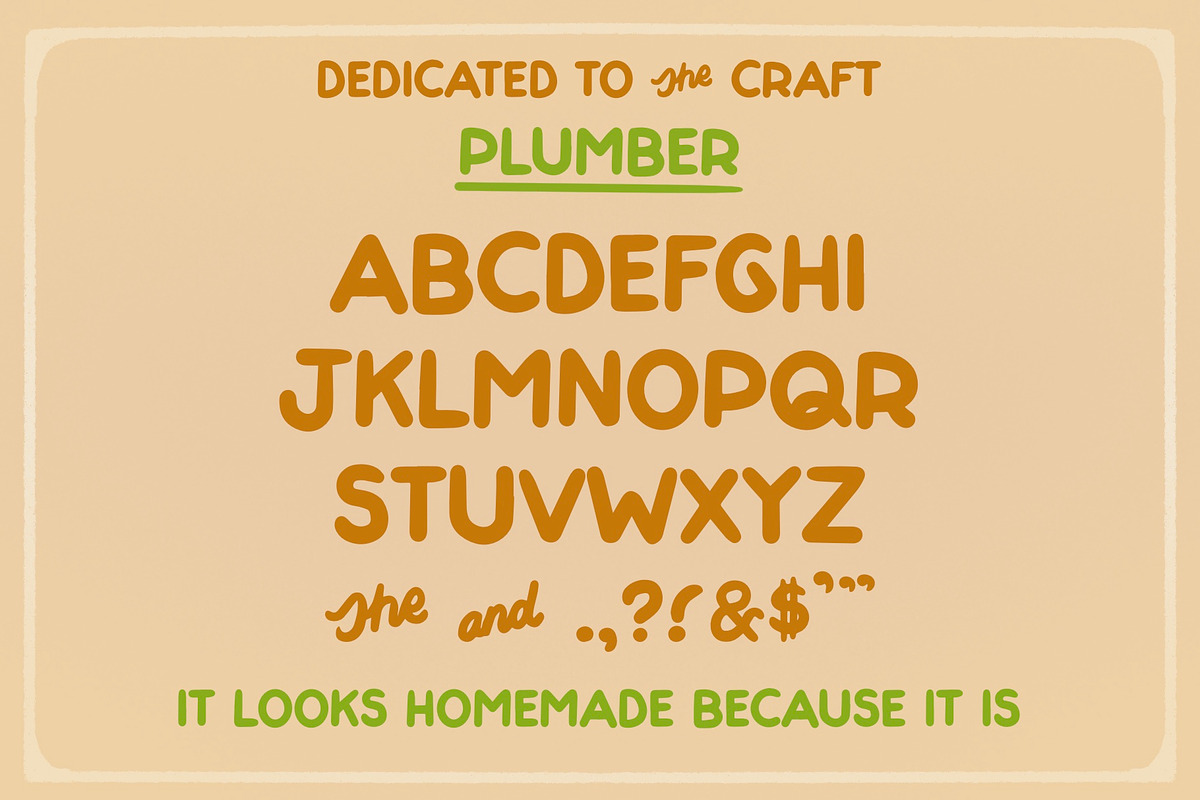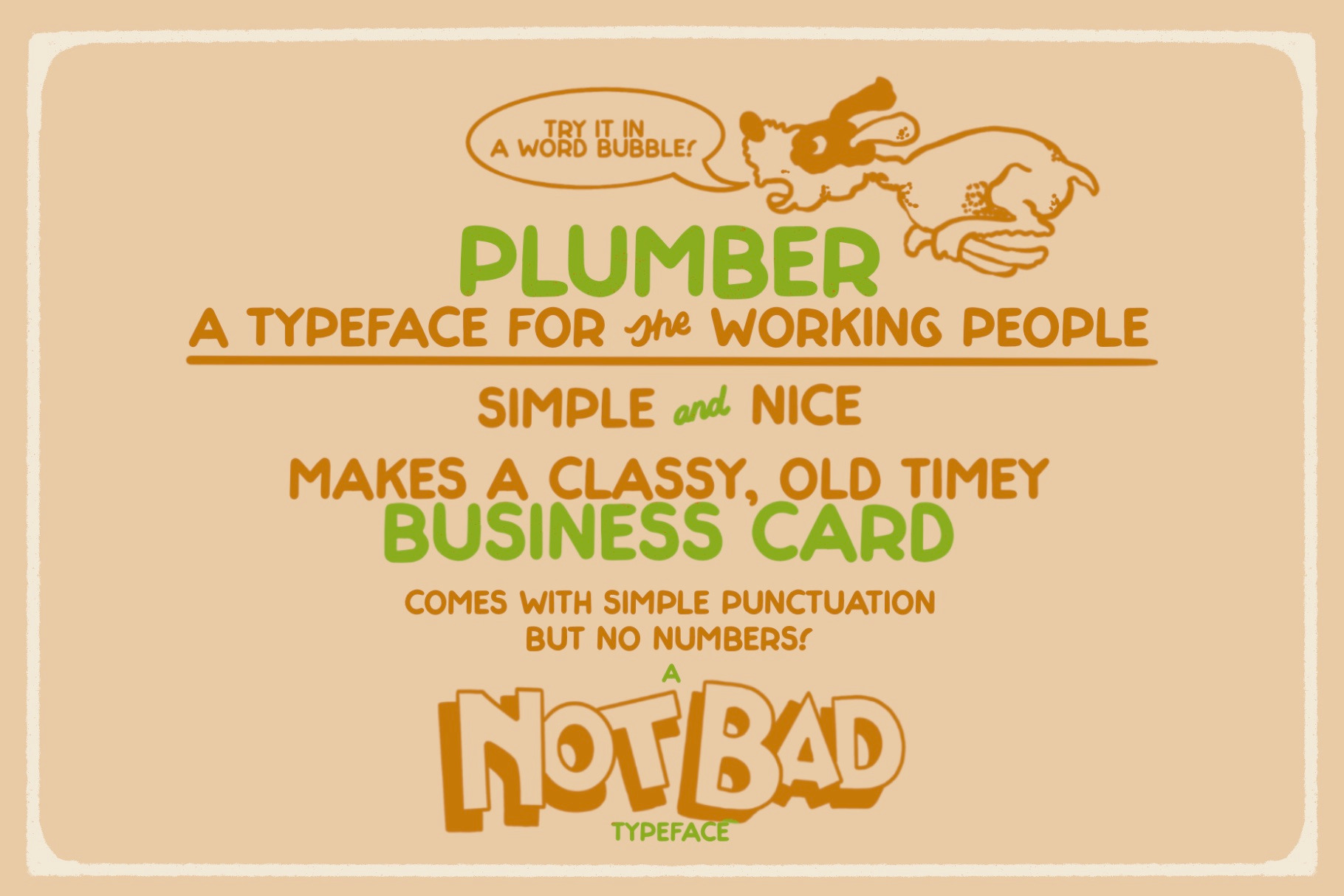
PLUMBER - The Casual Working Font
A hand drawn casual typeface referencing old comic copy, vintage business cards and handpainted signage. Comes with simple punctuation but no numbers.